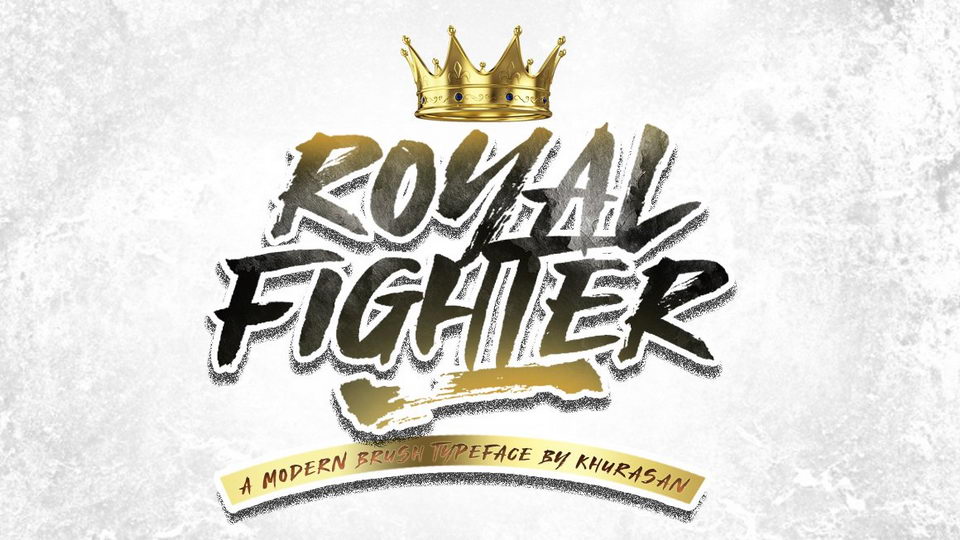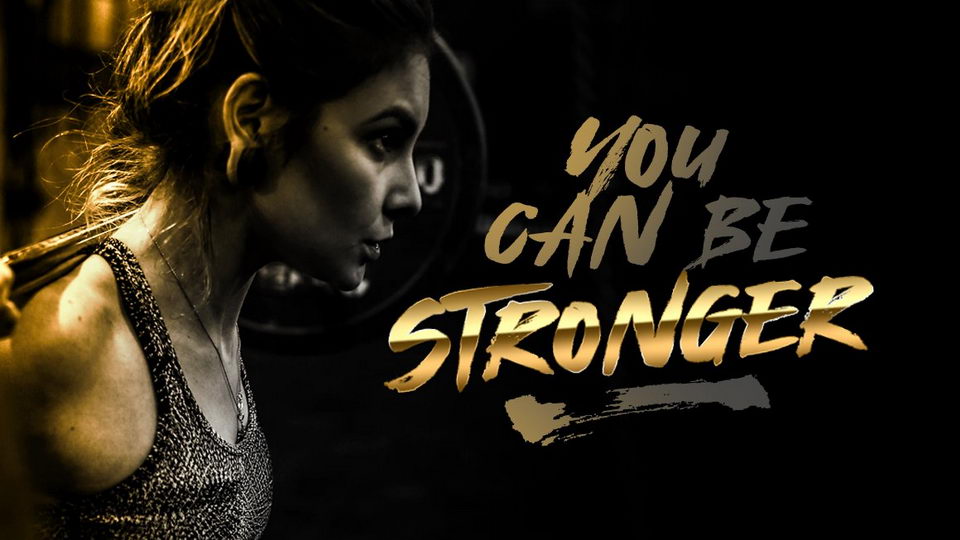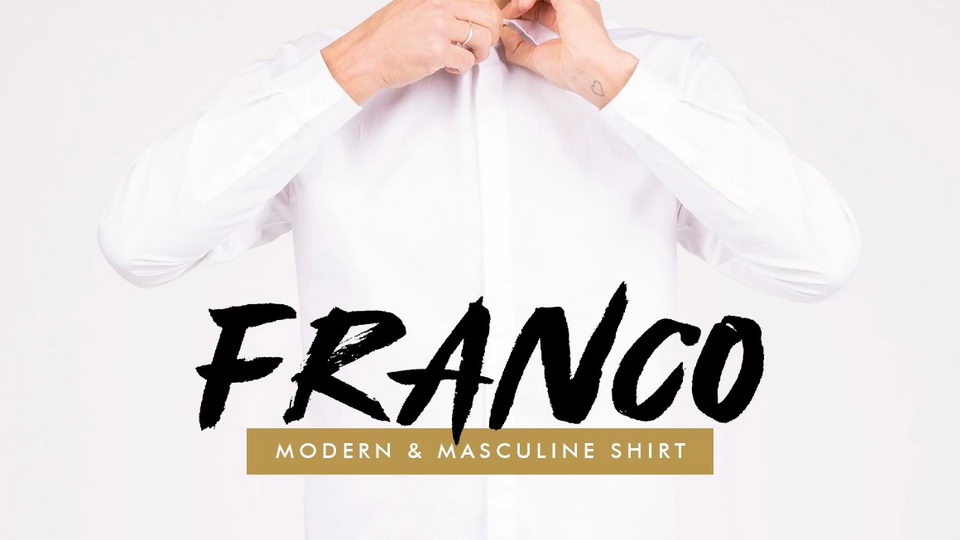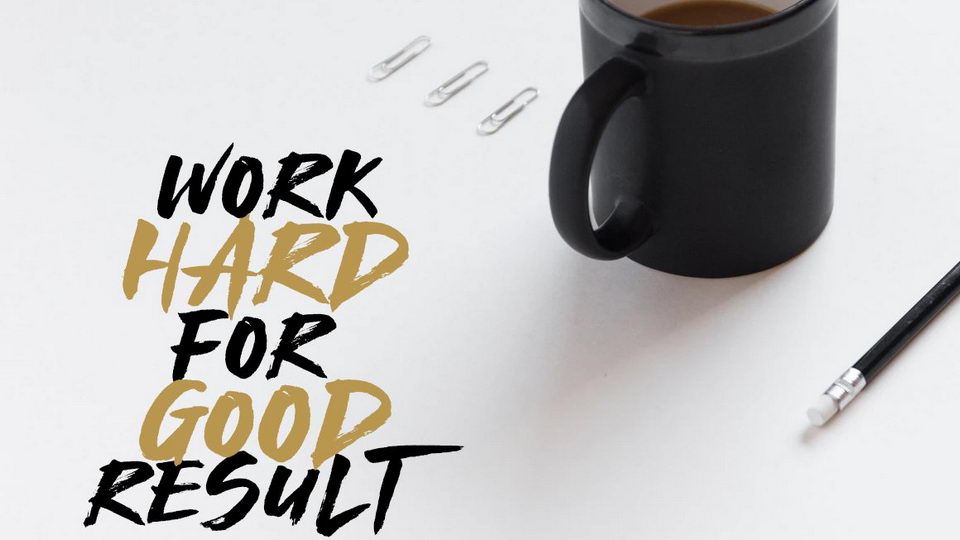
Royal Fighter is a strong and energetic hand painted rough brush font. It’s great for posters, t-shirts, banners, flyers and other creative projects.
Royal Fighter font includes a full set capital and lowercase letters, as well as multi-lingual support, currency figures, numerals, & punctuation.